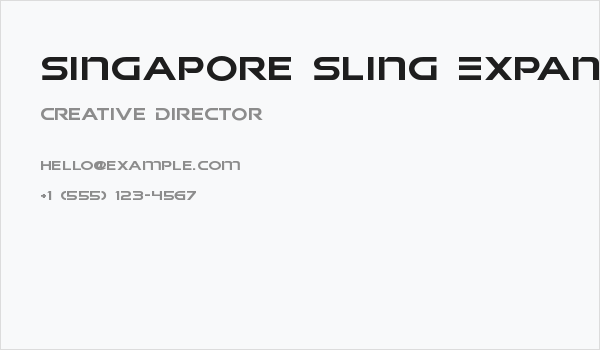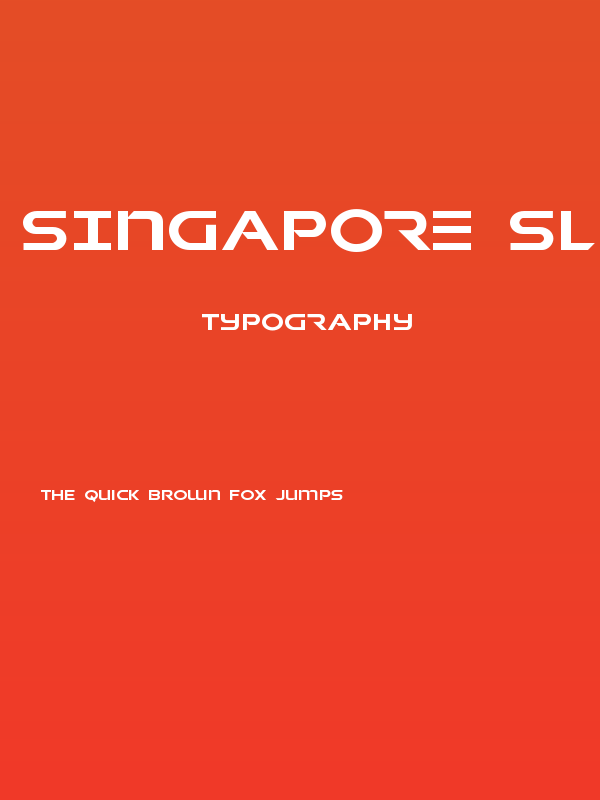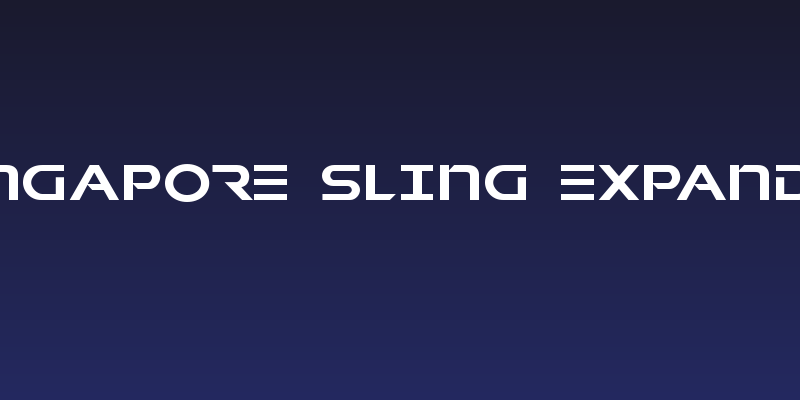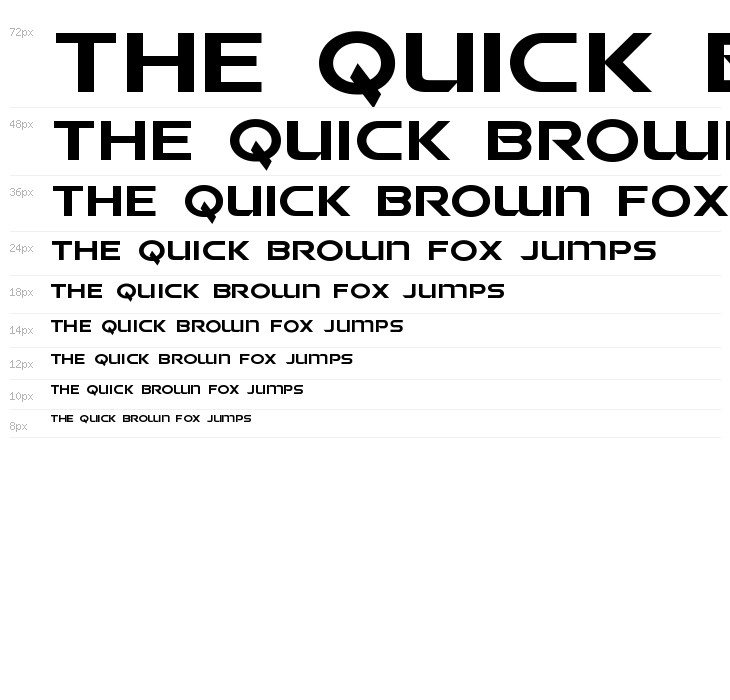
Singapore Sling Expanded Font
Singapore Sling Expanded Description
This font features a bold and futuristic design with geometric shapes and clean lines. The characters are constructed with a unique blend of straight edges and curves, giving it a modern and dynamic appearance. The uppercase and lowercase letters maintain a consistent style, with some characters incorporating distinctive cuts and angles that add to its contemporary look. The numerals are equally bold, with a uniform width that complements the overall design. Special characters are crafted with the same attention to detail, ensuring a cohesive visual experience across all glyphs.